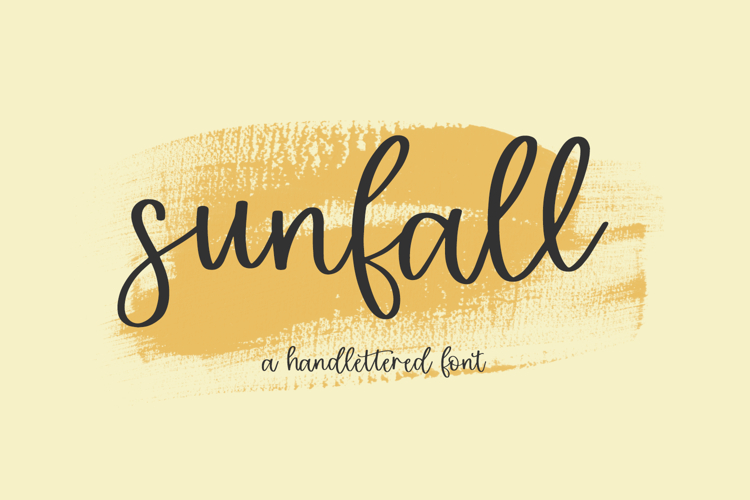
Introducing Sunfall, a modern calligraphy script.
- 5 alternate lowercase characters - r, l, s, t (x2)
- 14 ligatures - bb, cc, ee, ff, gg, ll, mm, nn, oo, pp, rr, ss, th, tt